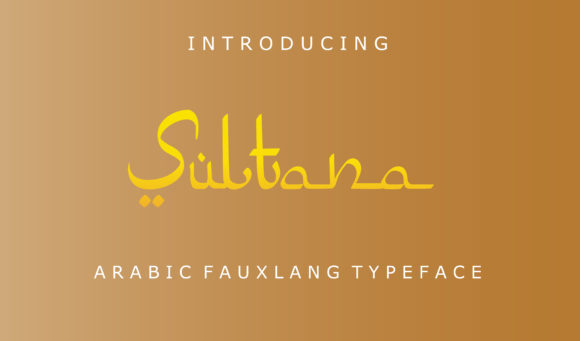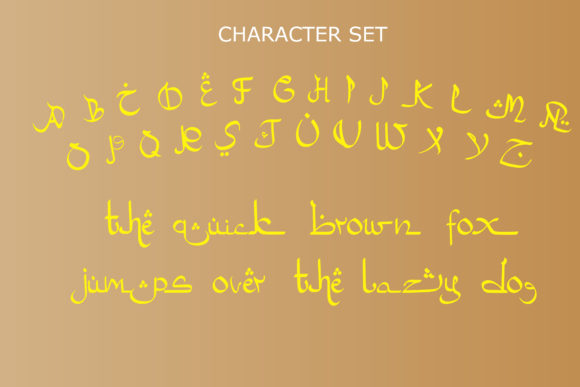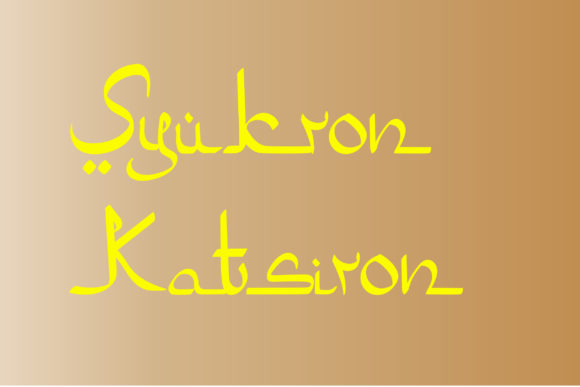
HomeScript FontsSultana Font Script Fonts Sultana Font FacebookXPinterestWhatsApp Sultana Font Poster 2 Sultana Font Poster 3 Sultana Font Poster 4 About Sultana Font Sultana is a faux Arabic language with a unique look. DOWNLOAD ON CREATIVE FABRICAThis font is sold and delivered by Creative Fabrica. Font Canyon may earn a commission if you buy through this link. People also explored Happy Sweet Font Autumn Skies Font Cute Baby Font Two Coffee Mug Mockup with Red Lily and Cookie Everything Font Manwriting Enrty Keyhole Font Heinyta November Font 365 0 TagsSultana Font Previous articleOuttmar FontNext articleOlive Family Font LEAVE A REPLY Cancel reply Comment: Please enter your comment! Name:* Please enter your name here Email:* You have entered an incorrect email address! Please enter your email address here Website: Save my name, email, and website in this browser for the next time I comment. Personal Use Free Stigma Font Personal Use Free Read more about this font Merak Personal Use Free Read more about this font Nottingsam Personal Use Free Read more about this font Predators Personal Use Free Read more about this font BLOG Fonts That Capture the Spirit of New York City New York City is more than just a place—it’s an experience, a rhythm, a visual language... How to Install and Use Fonts on Windows, macOS, and Web Projects Elegant Wedding Invitation Fonts – Handwritten & Script Fonts Top 7 Google Fonts Alternatives for Faster and Privacy-Friendly Web Design (2025)